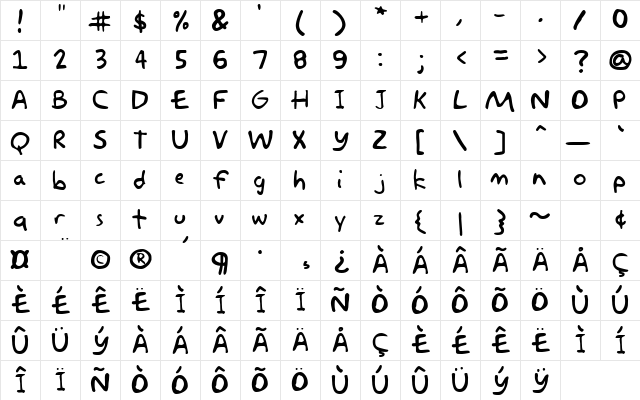
Akbar Plain Free Font
Akbar Plain
Copyright: Adapted by Jon Bernhardt in 1996 from the 1991 font by Cowan Design Associates. Based on the famous handwriting of Matt Groening. I added many punctuation characters.
Foundry: Lothars, Inc.
Designer: Jon Bernhardt
Design Context for Akbar
Akbar is a composed and adaptable typeface that performs quietly and consistently across a wide range of design contexts.